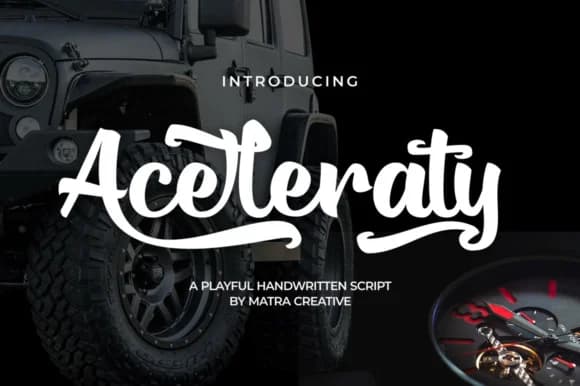
Aceleraty Font by Matra Creative is a dynamic brush script that captures the fluidity and personality of genuine handwriting. This typeface brings authentic character to design work while maintaining legibility across print and digital applications. The handcrafted aesthetic of Aceleraty works especially well in contexts where personal touch and human energy matter most to your audience.
The font excels for wedding invitation suites where couples seek an organic alternative to traditional formal scripts. Etsy product labels benefit tremendously from its artisanal appeal and warmth. Boutique skincare and cosmetics brands use Aceleraty to convey authenticity and care in their packaging design. Custom stationery projects, greeting cards, and small business logos all gain immediate character when paired with this expressive brushed typeface. DIY craft sign makers appreciate how Aceleraty brings personality and human touch to handmade projects without feeling overwrought.
What distinguishes Aceleraty is the balance between artistic expression and practical function. The flowing letterforms feel naturally drawn rather than strictly geometric, creating visual interest throughout headers and headlines. The character set maintains enough clarity for varied sizing and different applications without sacrificing that essential handcrafted quality. This versatility makes Aceleraty well-suited across diverse design contexts, from small intricate details to larger focal points, giving designers a brush script that serves both aesthetic and functional purposes equally well. Get Aceleraty Font on Creative Fabrica and bring handwritten warmth to your next typography project.
Aceleraty Font is a script font that shines as a display or heading face. Pair it with a clean sans-serif or serif font for body text β the contrast creates a clear hierarchy while the two styles stay balanced and easy to read.